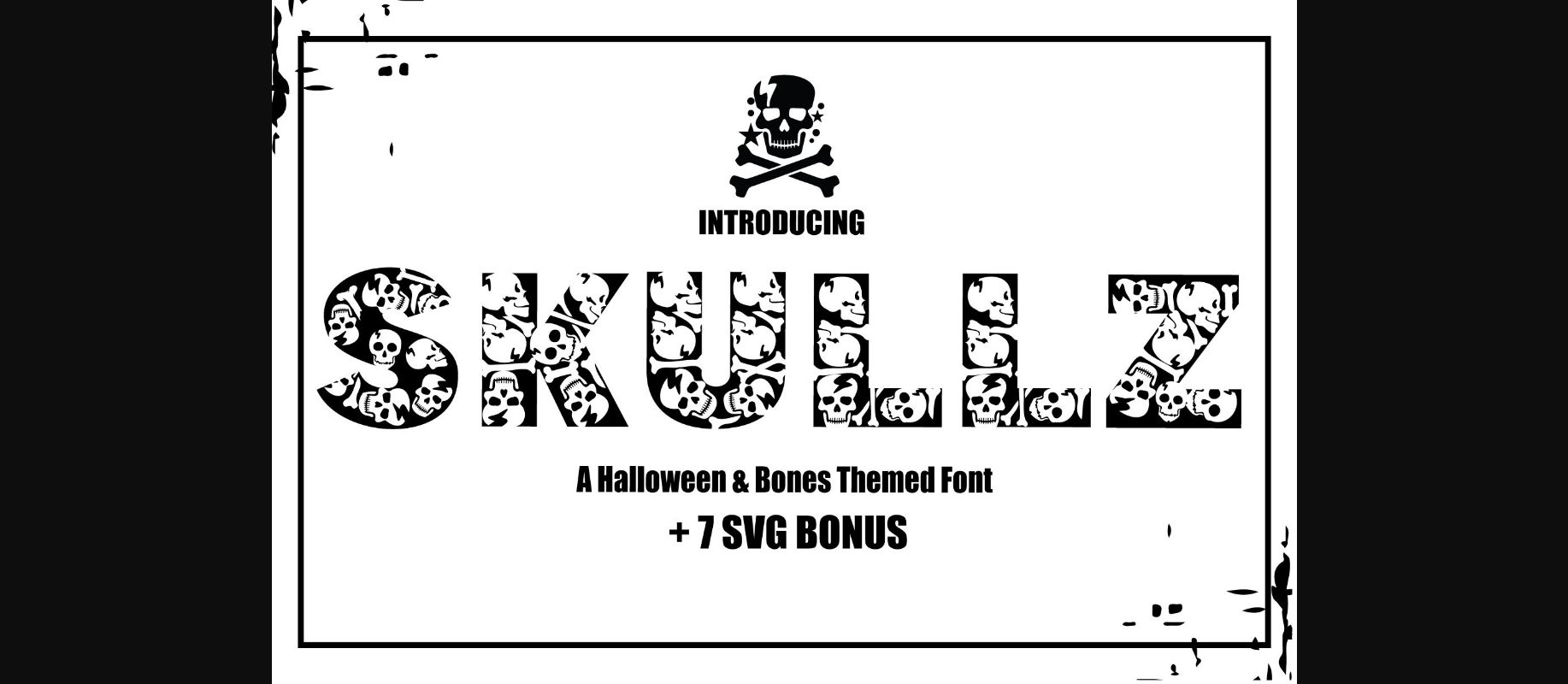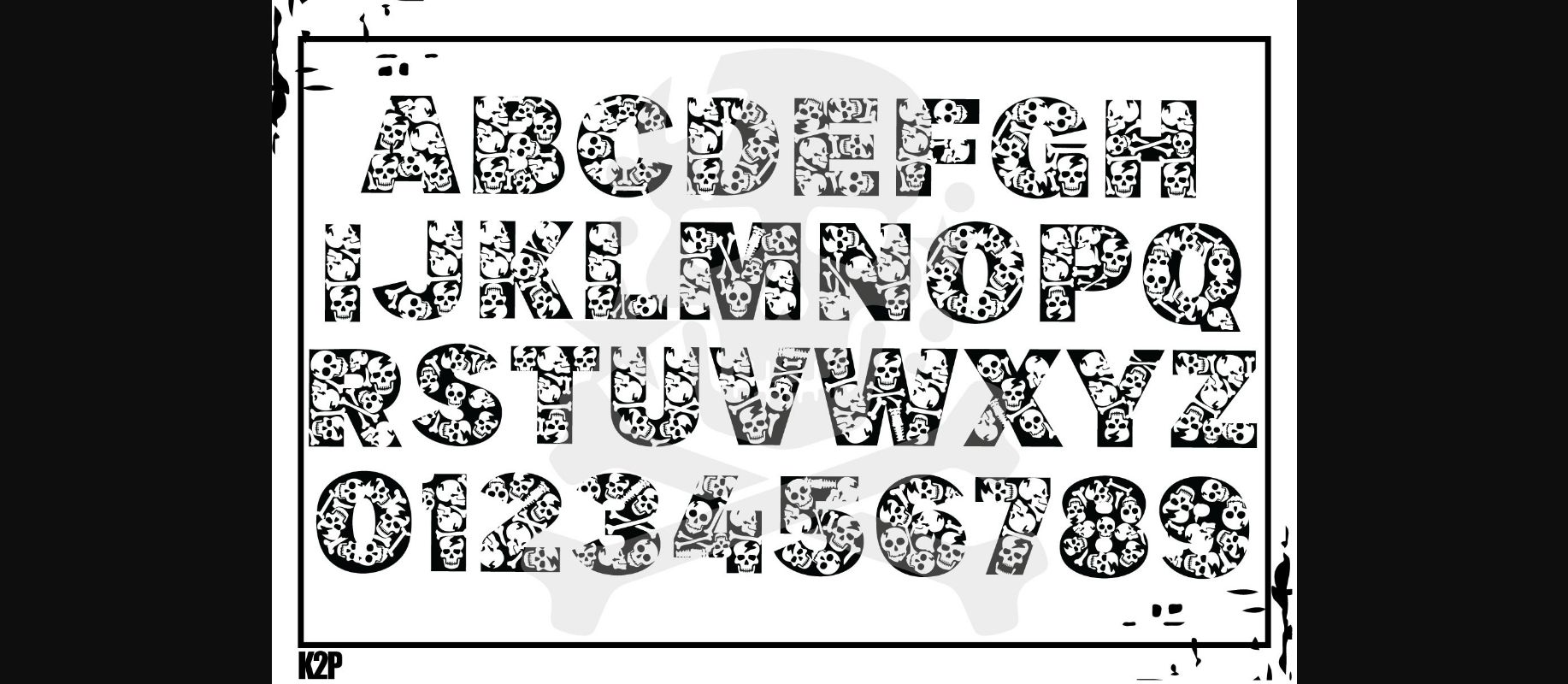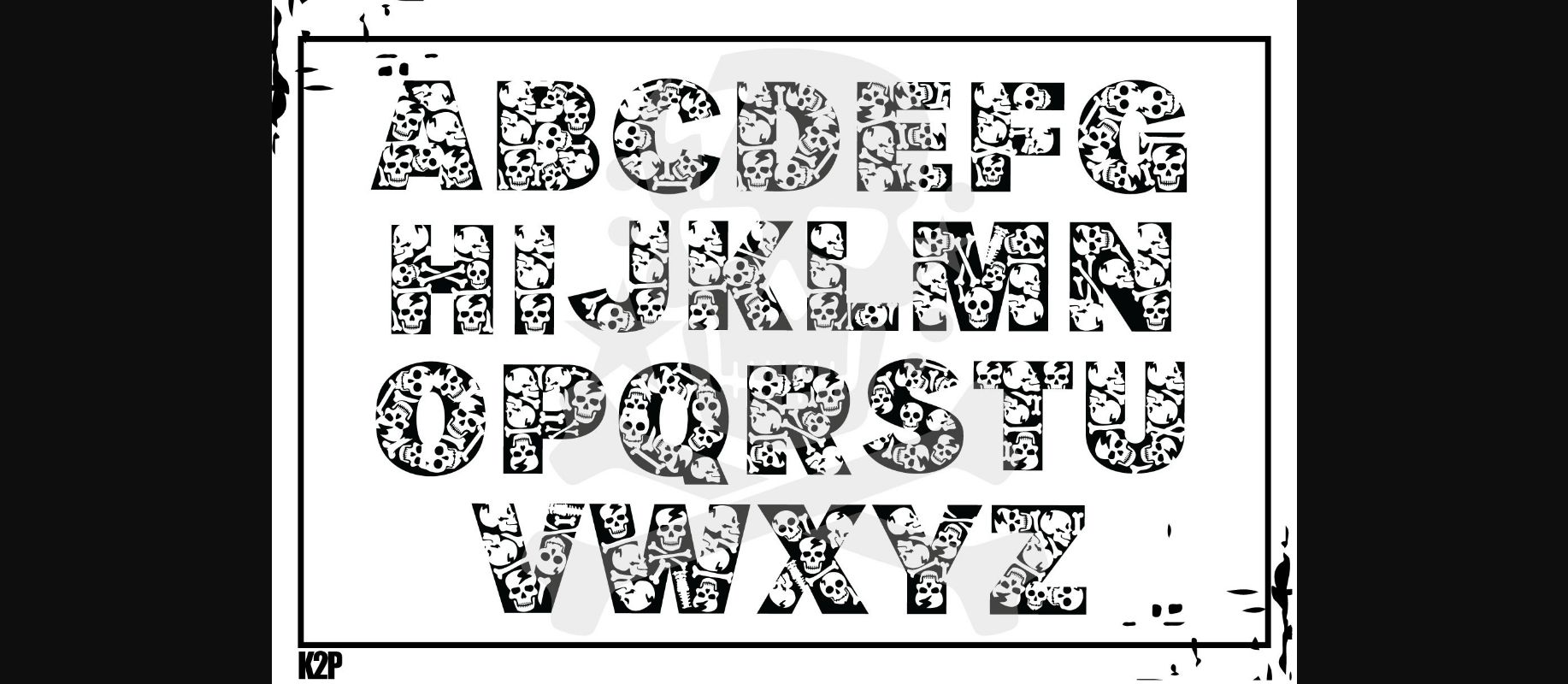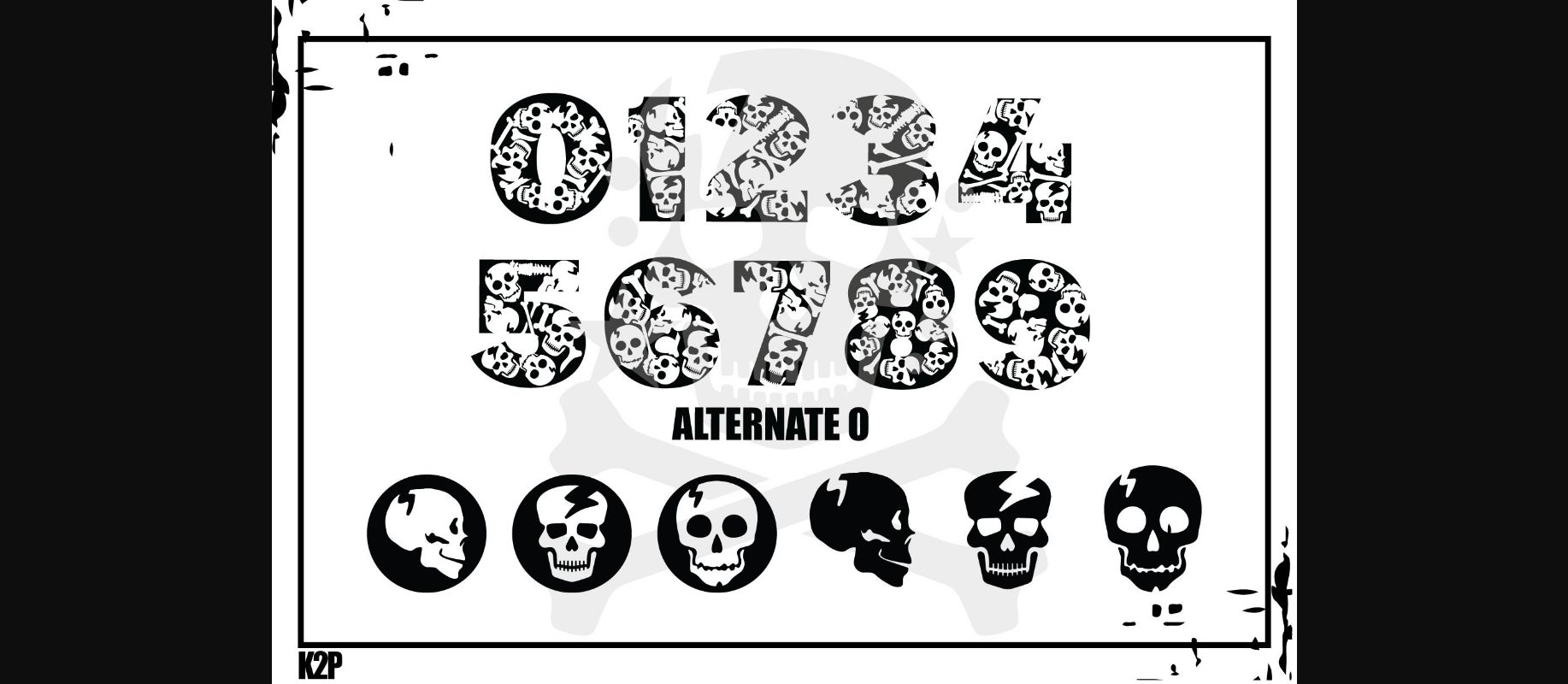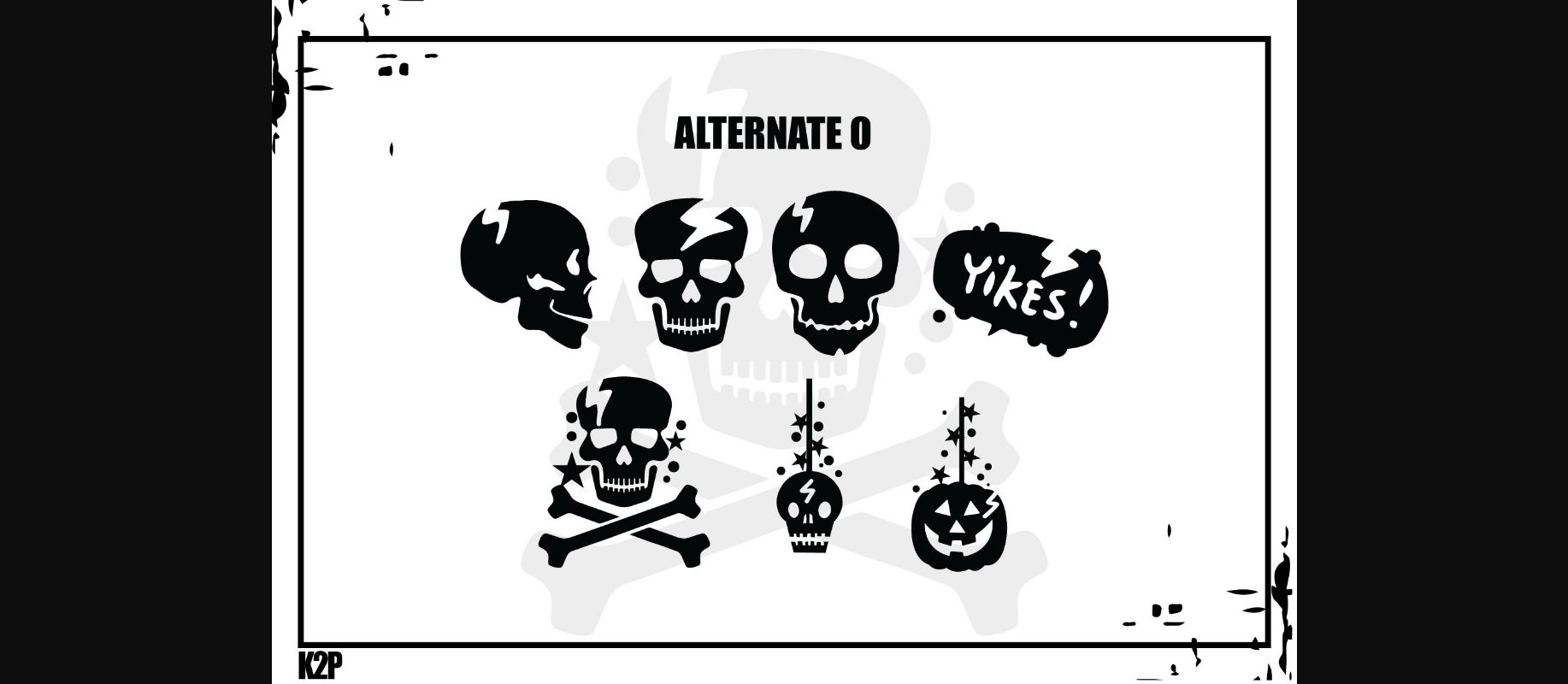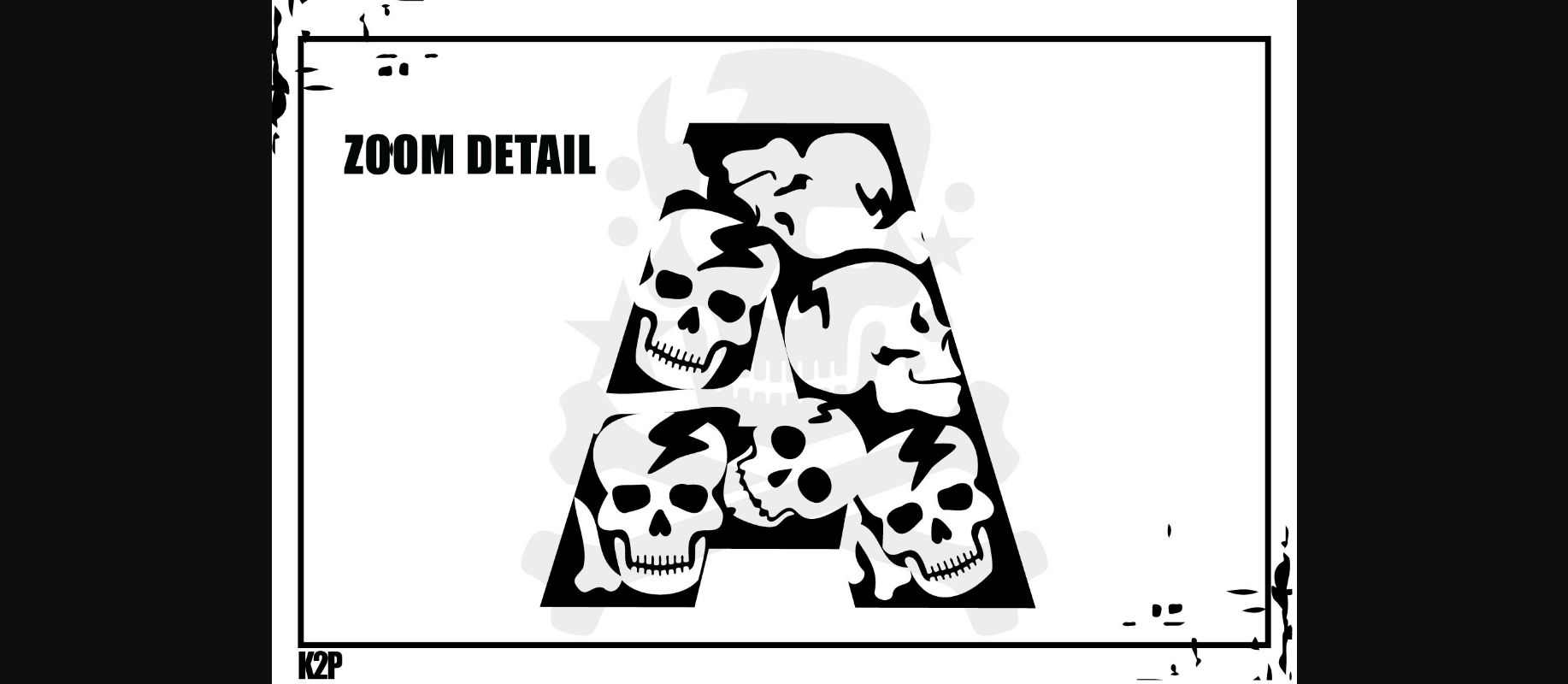
HomeDecorative FontsSkulls Font Decorative Fonts Skulls Font FacebookXPinterestWhatsApp 1 of 8 ... Skulls Font Poster 2... Skulls Font Poster 3... Skulls Font Poster 4... Skulls Font Poster 5... Skulls Font Poster 6... Skulls Font Poster 7... Skulls Font Poster 8... About Skulls Font Skulls are a thick-lettered and spooky decorative font. It is perfectly suitable for any Halloween-related project or crafty idea! The only limit is your imagination. DOWNLOAD NOW People also explored Wedding Font Roslitta Aganta Font Rosse Font Ferdinand Font Slowly Font The Dodger Font Teacher Xmas Font Fentapon Font Capappa Font 435 0 TagsSkullsSkulls Font Previous articleFall Vibes FontNext articleMask to School Font LEAVE A REPLY Cancel reply Comment: Please enter your comment! Name:* Please enter your name here Email:* You have entered an incorrect email address! Please enter your email address here Website: Save my name, email, and website in this browser for the next time I comment. Personal Use Free Neuropol Personal Use Free Read more about this font Doodle Font Personal Use Free Read more about this font Sebastopol Personal Use Free Read more about this font Pumpkin Type Halloween Font Personal Use Free Read more about this font BLOG How to Install and Use Fonts on Windows, macOS, and Web Projects How to Install and Use Fonts on Windows, macOS, and Web Projects Fonts are a crucial part of design and branding. Whether you’re designing a... Top 7 Google Fonts Alternatives for Faster and Privacy-Friendly Web Design (2025) Using Fonts in Digital Marketing: Tips to Strengthen Your Brand Identity Best Fonts for T-Shirt Design – Top 2025 Picks